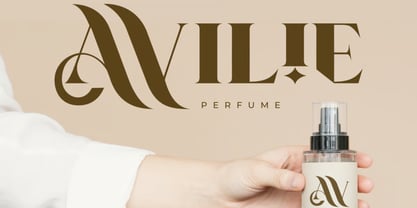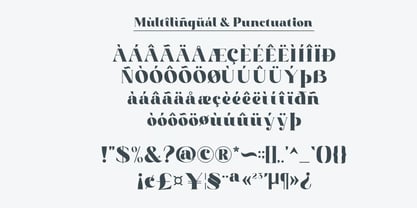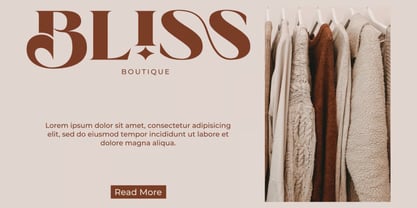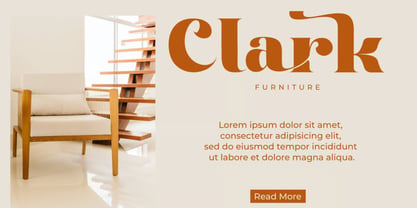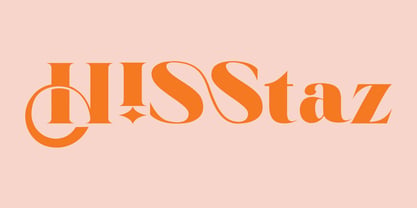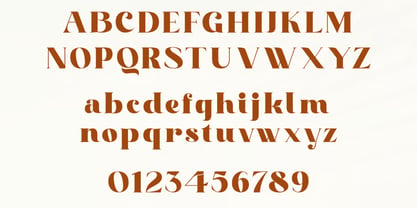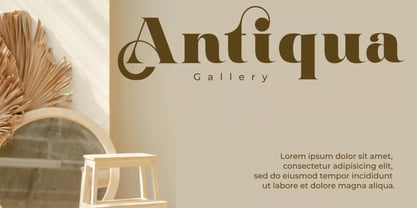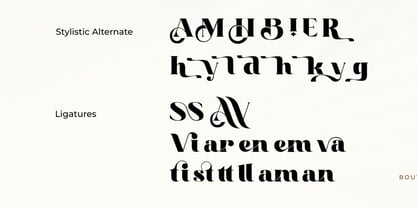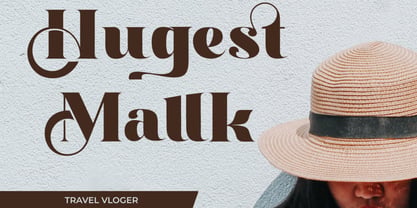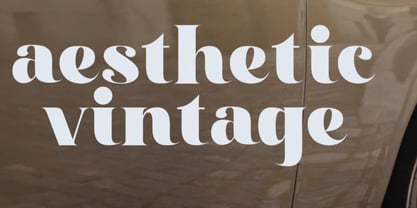
Hisstaz
The Hisstaz Font Family was designed by Hasnat Khan and published by Hasnat Studio. Hisstaz contains 1 styles. More about this family
Hisstaz is a beautiful serif typeface that masterfully blends classic elegance, modern sophistication, and artistic character into one stunning font. Designed with smooth curves, bold stems, and refined decorative details, Hisstaz offers a luxurious yet highly readable appearance that makes it perfect for premium branding and high-end design projects.
Featuring distinctive letterforms such as the elegant curved M and uniquely crafted g and h, Hisstaz stands out with its graceful personality and timeless appeal. The font combines modern serif aesthetics with artistic craftsmanship, creating typography that feels both sophisticated and memorable.
Whether you're designing cosmetic packaging, fashion branding, editorial layouts, wedding invitations, luxury logos, product labels, magazine covers, social media content, or premium marketing materials, Hisstaz delivers a refined visual experience that captures attention and elevates your brand identity.
✿ Key Features:
• Elegant Beauty Serif Design: A luxurious serif style with timeless sophistication.
• Distinctive Artistic Letterforms: Unique characters that create a memorable visual identity.
• Smooth Curves & Bold Stems: Perfect balance between elegance and readability.
• Alternates & Stylistic Characters: Creative glyph variations for customized typography.
• Uppercase & Lowercase Letters: Complete alphabet for versatile design applications.
• Numbers & Punctuation: Professional character set for polished compositions.
• Multilingual Support: Supports multiple languages for global usability.
• Premium Craftsmanship: Carefully designed for both digital and print excellence.
✿ Perfect For:
• Luxury Branding & Logo Design: Create sophisticated and memorable brand identities.
• Cosmetic & Beauty Packaging: Perfect for skincare, makeup, fragrance, and wellness products.
• Fashion & Lifestyle Branding: Add elegance to fashion labels and premium collections.
• Editorial & Magazine Design: Stunning for headlines, covers, and editorial layouts.
• Wedding Invitations & Stationery: Bring beauty and refinement to special occasions.
• Product Packaging & Labels: Ideal for luxury goods, artisan products, and boutique brands.
• Social Media & Marketing: Design elegant promotional graphics with high-end appeal.
Enhance your creative projects with Hisstaz – Beauty Serif Typeface, a luxurious and modern serif font designed for branding, fashion, beauty products, editorials, packaging, invitations, and elegant visual storytelling. Create timeless designs that leave a lasting impression.